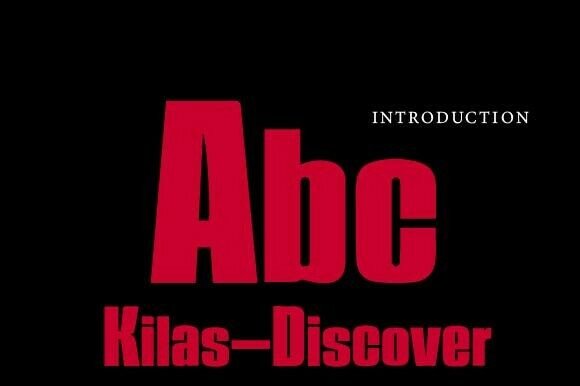
Introduction to Kilas Discover Font
Kilas Discover is a tall bold condensed display font with a strong, modern, and commanding personality.
Its bold condensed style makes Kilas-Discover perfect for posters, branding, logos, headlines, packaging, editorial layouts, sports graphics, and promotional materials Whether youโre creating a striking brand identity, impactful advertising, or attention-grabbing typography for print and digital projects, Kilas-Discover adds strength and precision to every composition.
Key Features of Kilas Discover Font
Why Choose Kilas Discover Font?